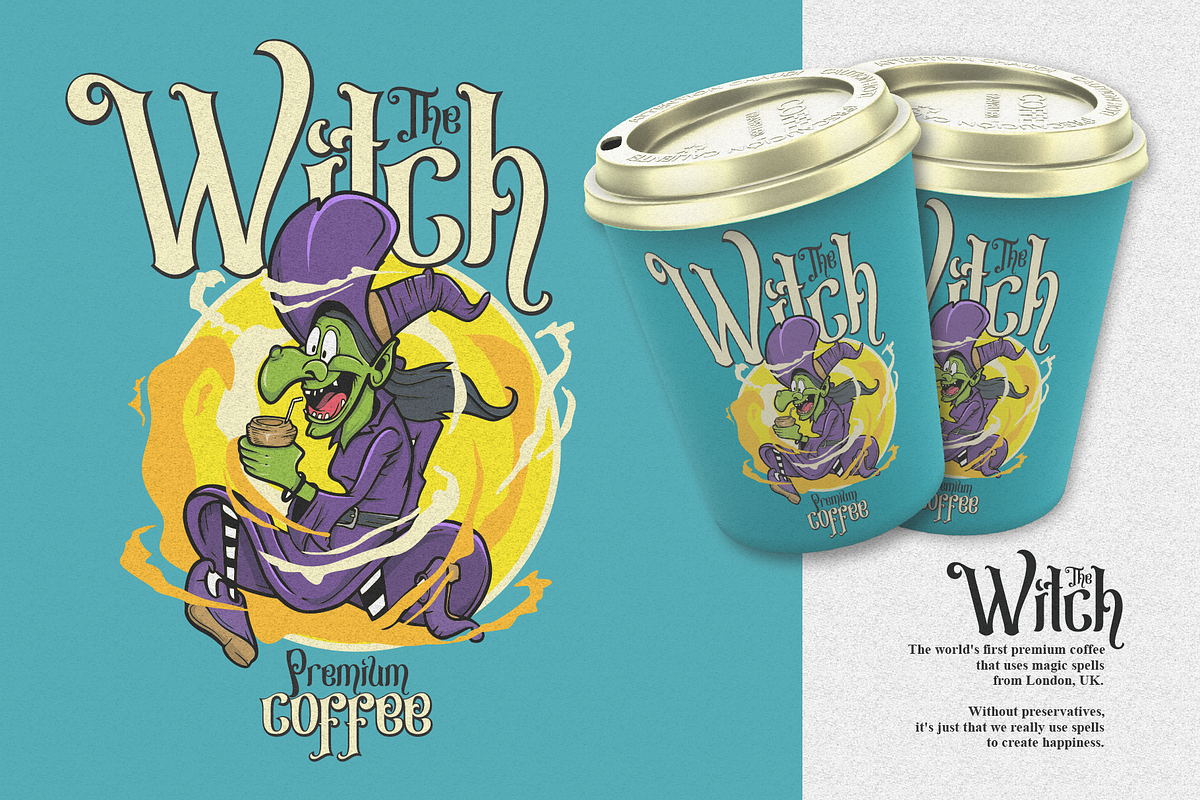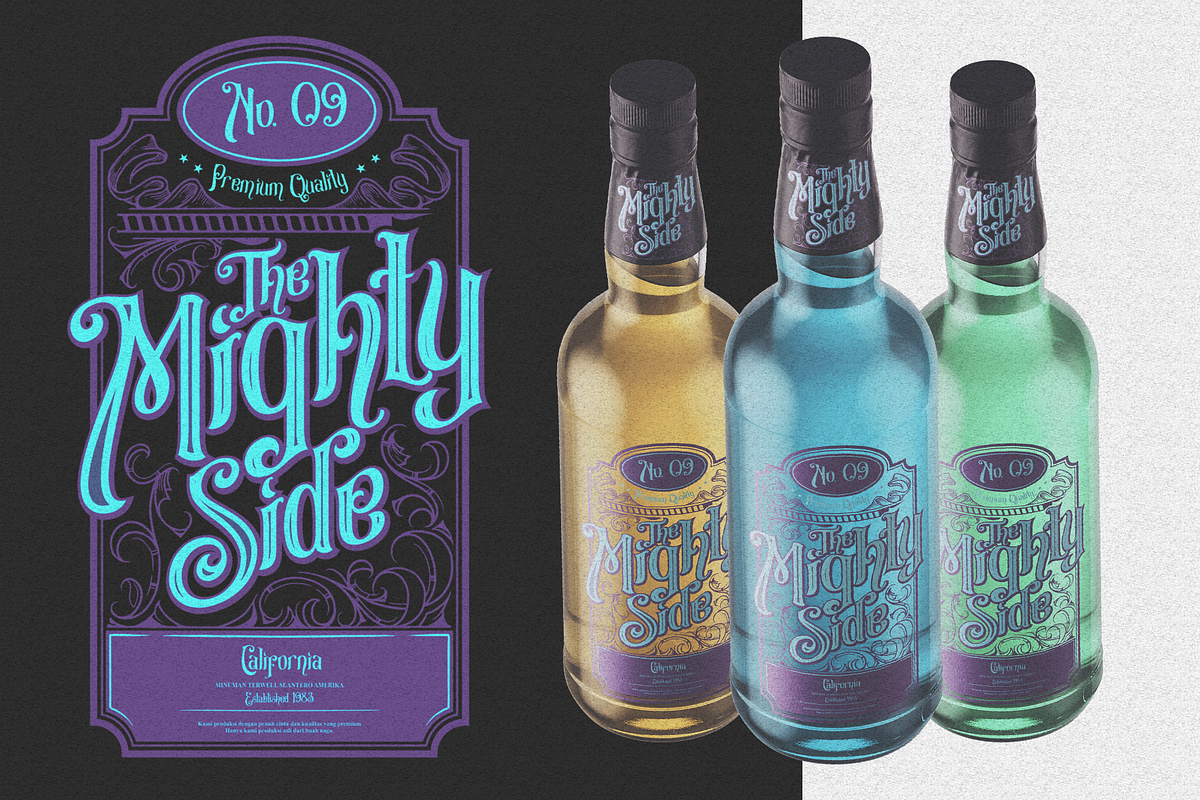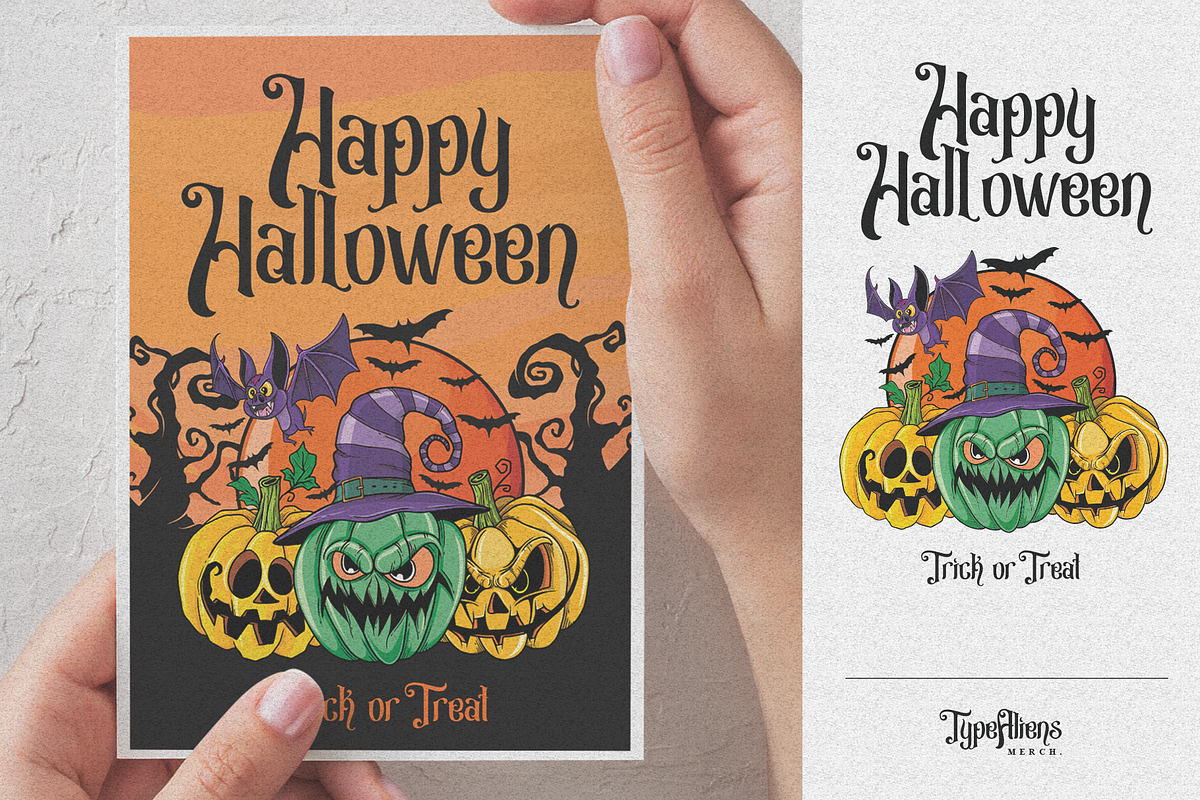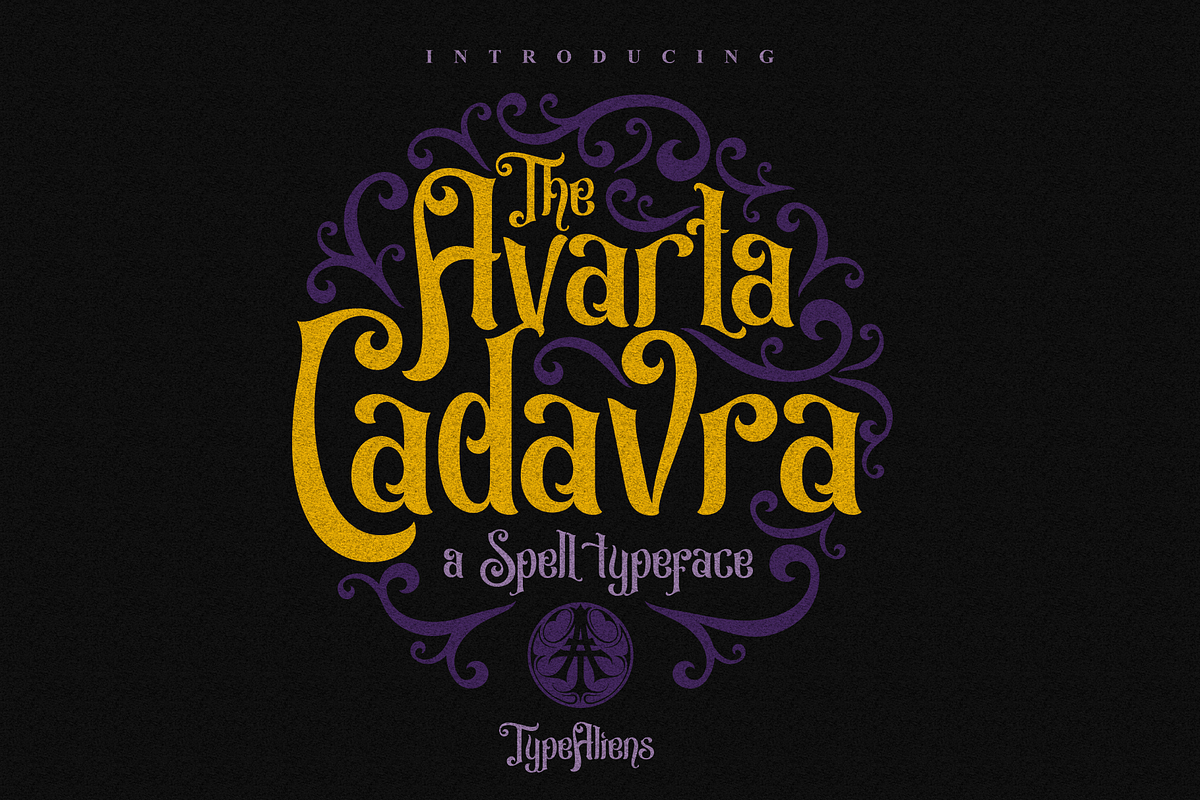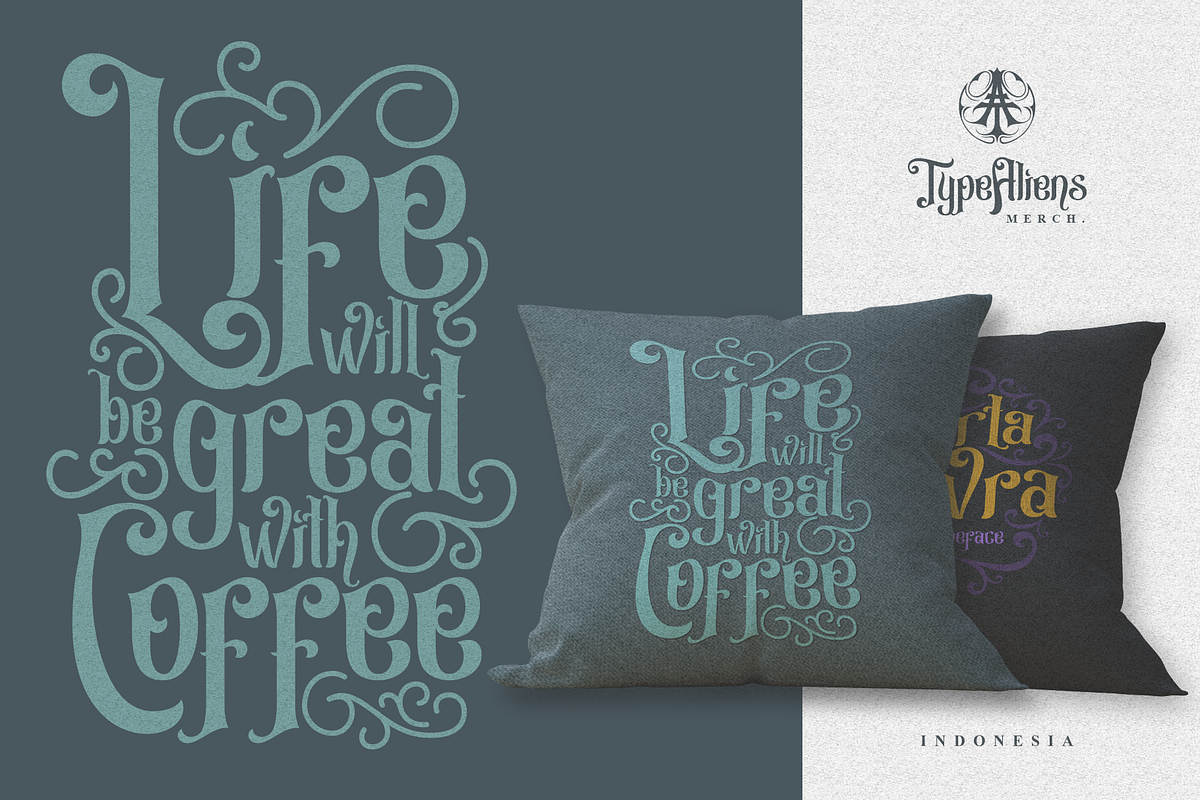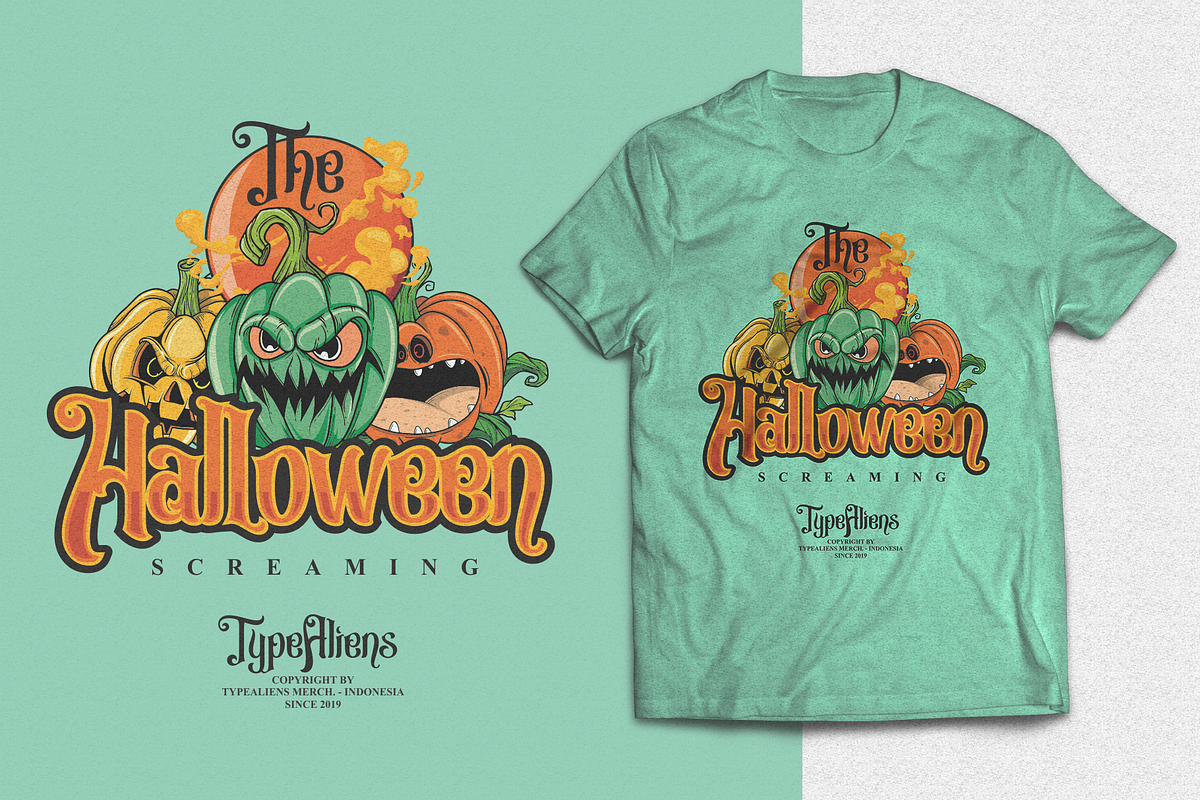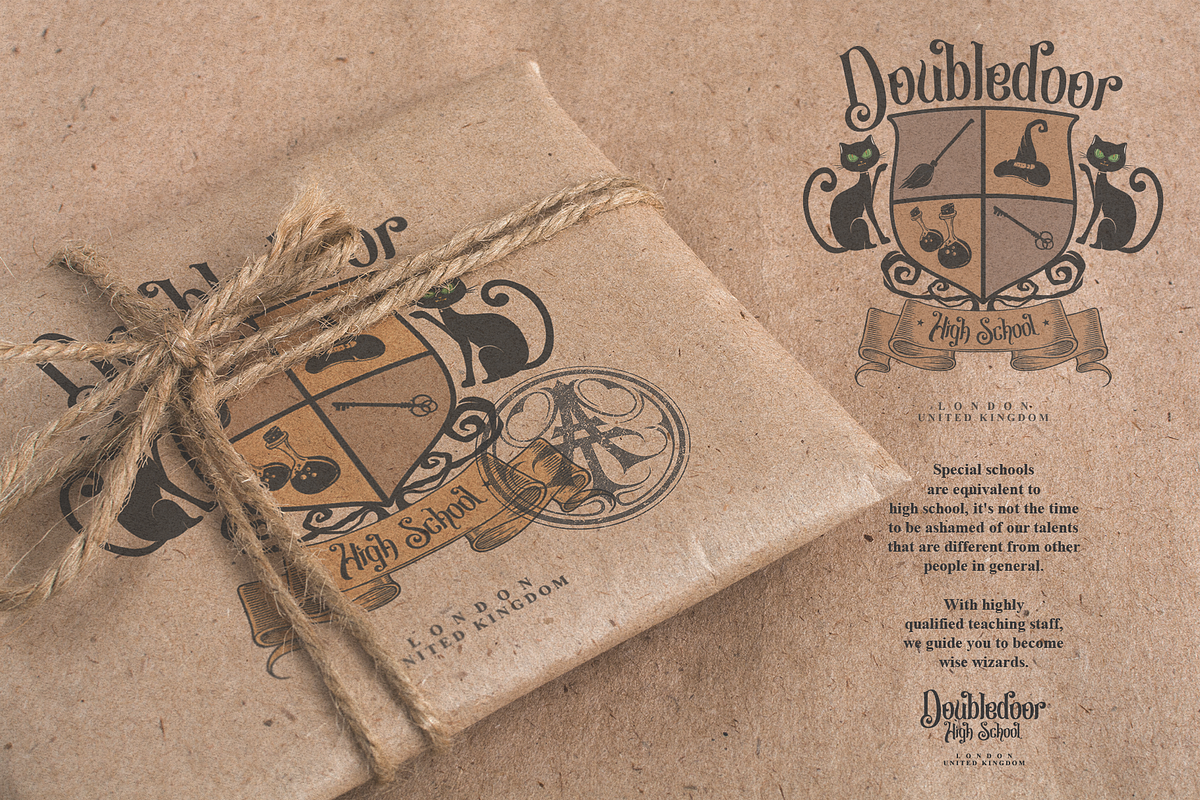
Avarta Cadavra for Fun & Halloween
AVARTA CADAVRA
is a type of letter with a style that is quite unique, has attractive features for a classic impression but adapts to the era.
This font is inspired by spells and magicians but has an impression that is not too "dark" and still has the impression that it can be adapted to a pretty funny impression too. Then you can also apply it to a vintage or Victorian design too.
Avarta Cadavra is also suitable for making logos, beverage label design, badge designs, t-shirt designs, food/coffee packaging and movie poster designs.
Including a full set of upper and lower case letters, numbers, punctuation, ligature, alternative characters, multilingual character support, vector ornaments and additional full color vector illustrations, as a bonus for supporting the font.
Features : Alternate Characters. Ligatures. Support Multilingual Characters. Extra Vector Ornaments. Extra Vector Illustrations.